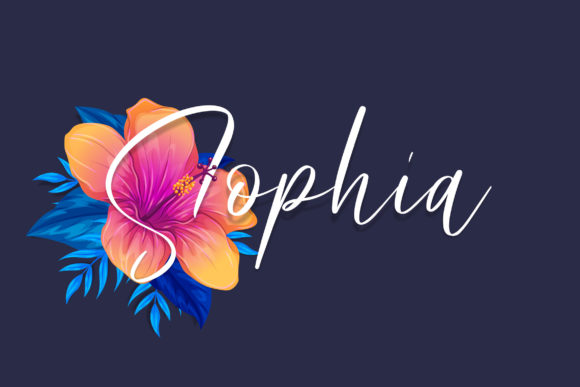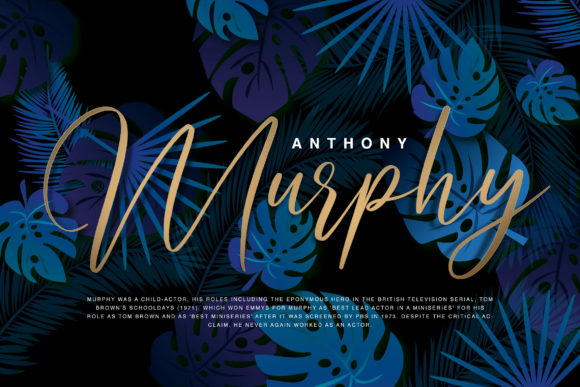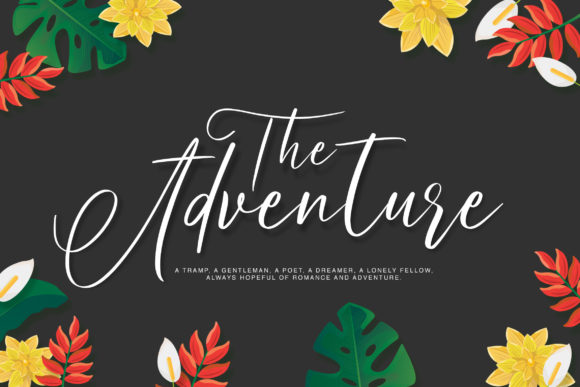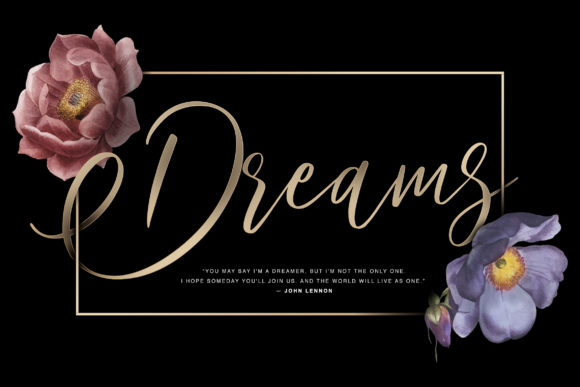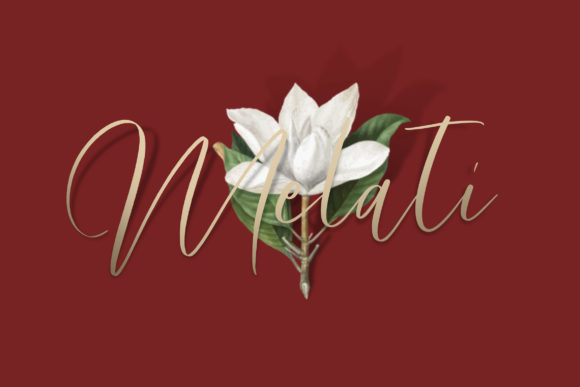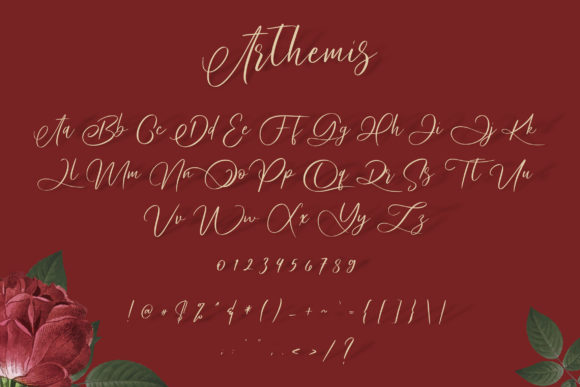
HomeScript FontsArthemis Font Script Fonts Arthemis Font FacebookXPinterestWhatsApp Arthemis Font Poster 2 Arthemis Font Poster 3 Arthemis Font Poster 4 Arthemis Font Poster 5 Arthemis Font Poster 6 Arthemis Font Poster 7 About Arthemis Font Arthemis is a stunning handwritten font with a bold feel. It will turn any design project into a true standout! DOWNLOAD ON CREATIVE FABRICAThis font is sold and delivered by Creative Fabrica. Font Canyon may earn a commission if you buy through this link. People also explored Smithen Font Sunshine Font Sylvia Andita Font Paralucent Condensed Pro A Signature Font Endestry Font Baby Angel Font Sweet Romance Font 305 0 TagsArthemis Font Previous articleBluehill FontNext articleMollysh Font LEAVE A REPLY Cancel reply Comment: Please enter your comment! Name:* Please enter your name here Email:* You have entered an incorrect email address! Please enter your email address here Website: Save my name, email, and website in this browser for the next time I comment. Personal Use Free Shelly Personal Use Free Read more about this font Sellena Brush Font Personal Use Free Read more about this font Maharany Personal Use Free Read more about this font Loving You Personal Use Free Read more about this font BLOG Using Fonts in Digital Marketing: Tips to Strengthen Your Brand Identity In the realm of digital marketing, every visual element plays a crucial role in shaping a brand's identity, and fonts are no exception. The... To increase your work productivity, choose the most readable fonts. The 10 Best Handwriting Fonts to Add Personality to Your Designs How to Cut Any Font on Cricut: Convert a Font to SVG (Free)